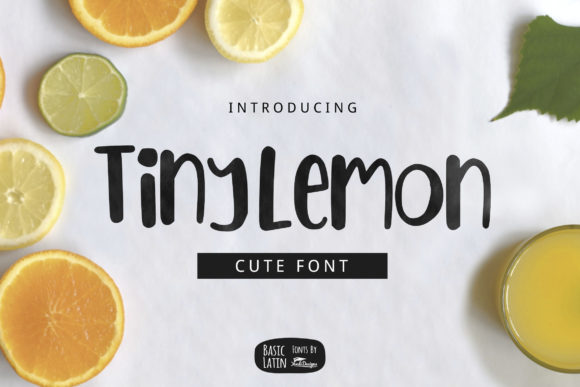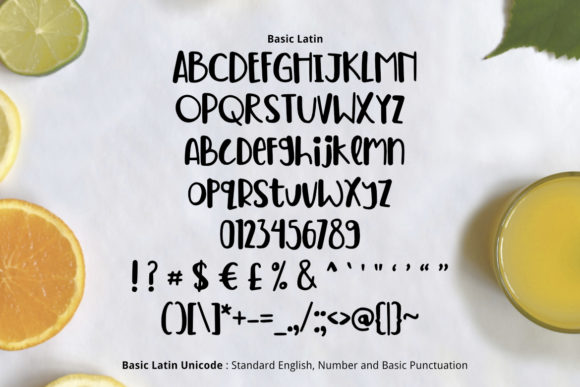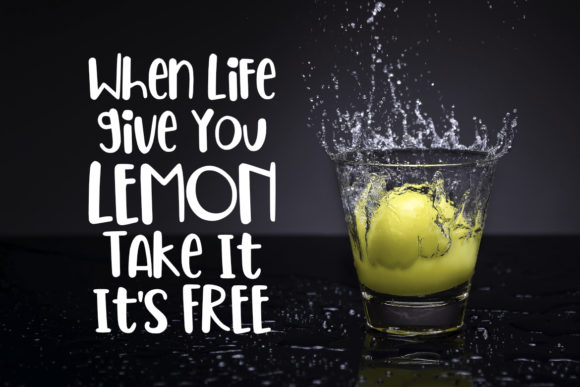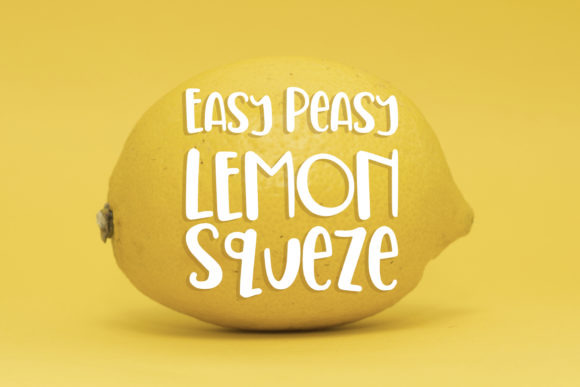
About Tiny Lemon Font
Tiny Lemon is a sweet and natural handwritten font. Whether you’re using it for crafting, digital designing, presentations or greeting cards making, it’s perfect!